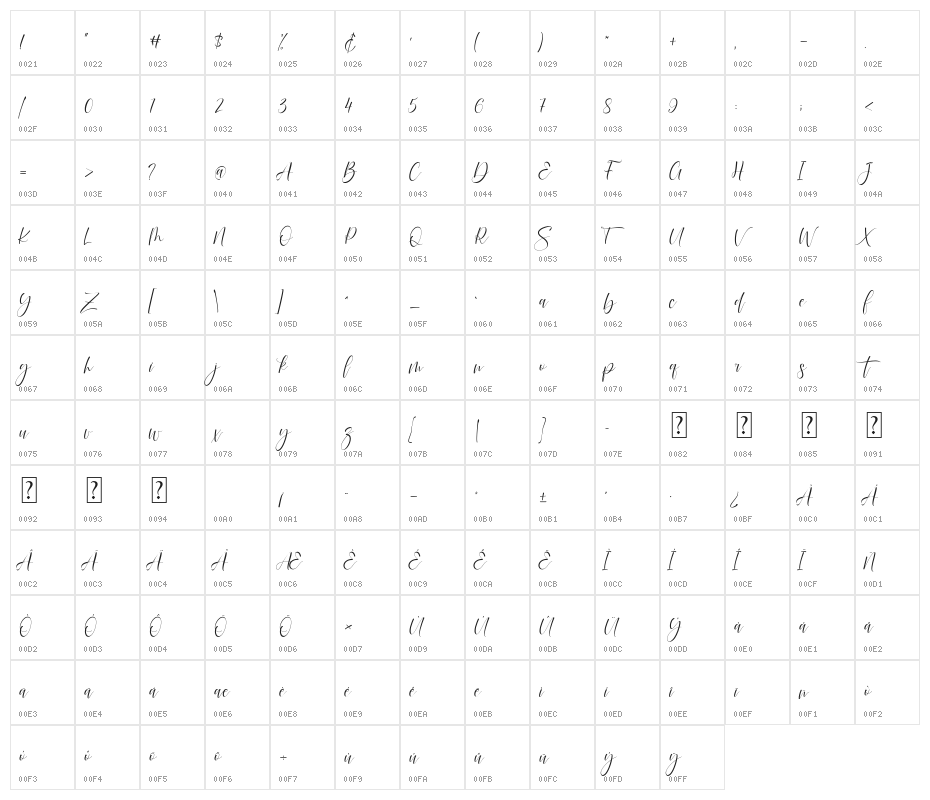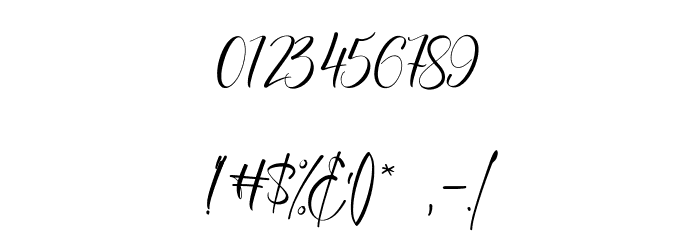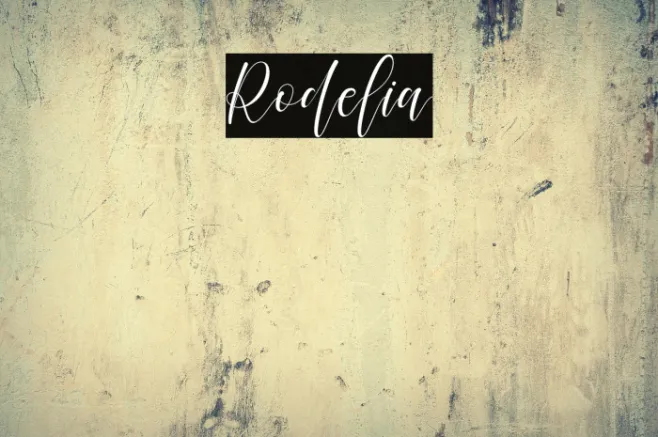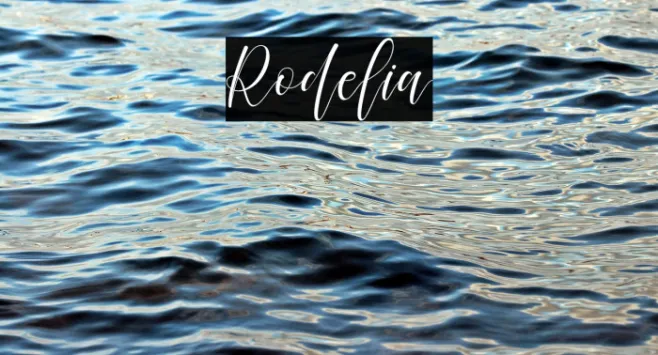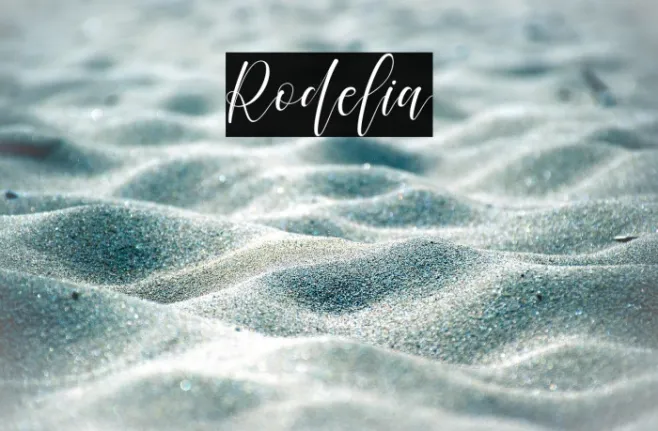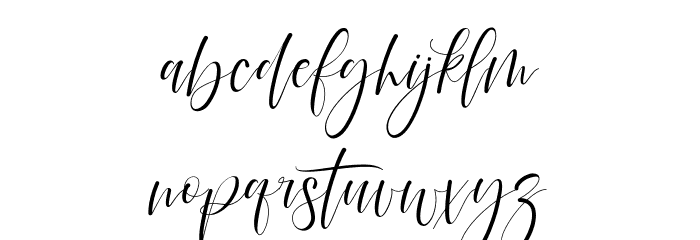
Rodelia Font
Rodelia Description
This elegant script font features a flowing, cursive style with intricate loops and flourishes. The characters are connected, creating a seamless and sophisticated appearance. The uppercase letters are particularly ornate, with exaggerated swashes that add a touch of drama and flair. The lowercase letters maintain a consistent style, with smooth curves and a graceful rhythm. The numbers and special characters are designed to match the overall aesthetic, ensuring a cohesive look across all text elements. This font is perfect for projects that require a touch of elegance and sophistication, such as wedding invitations, luxury branding, and high-end product packaging.
| Proposed Projects | Ideal for wedding invitations, luxury branding, and high-end product packaging. |